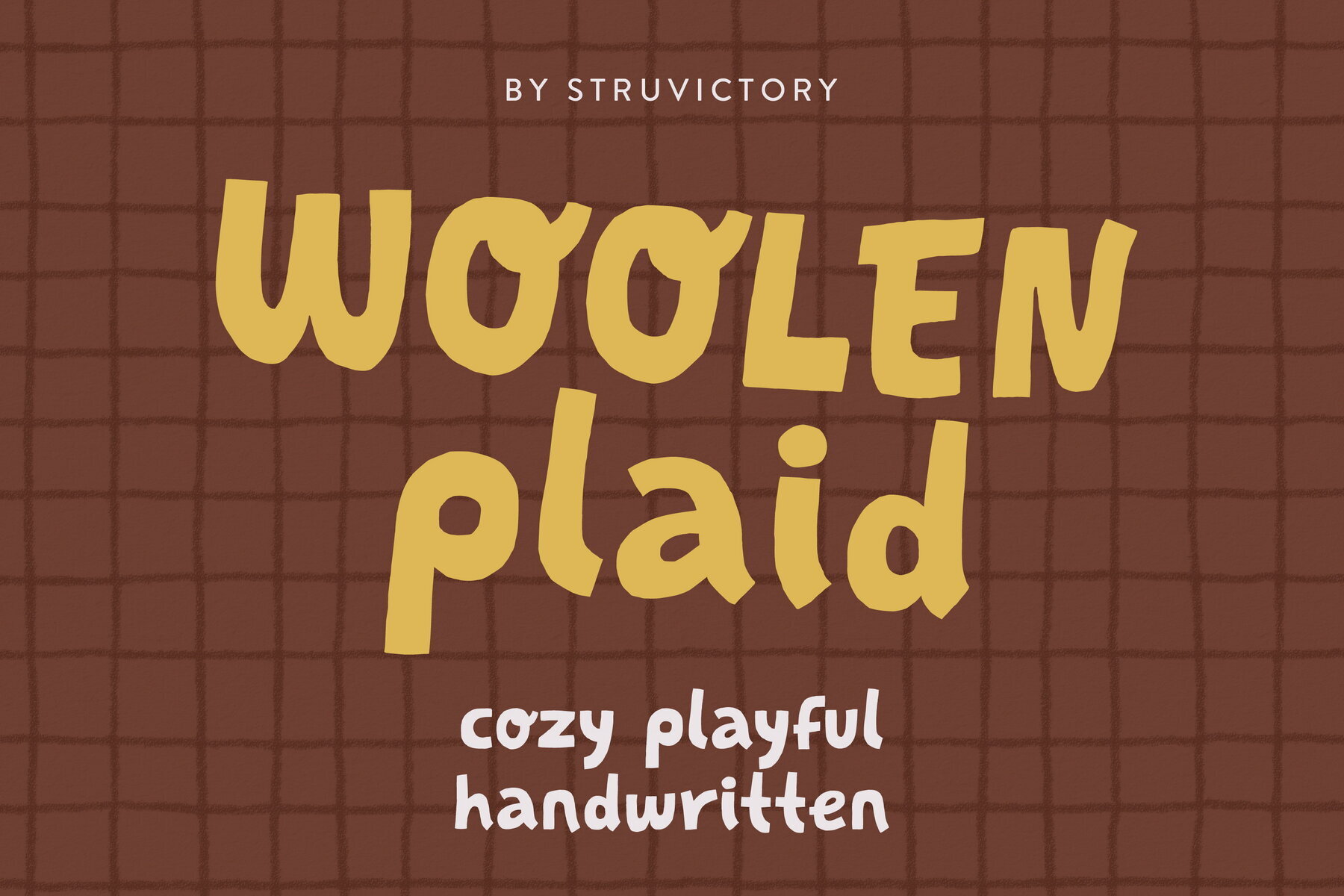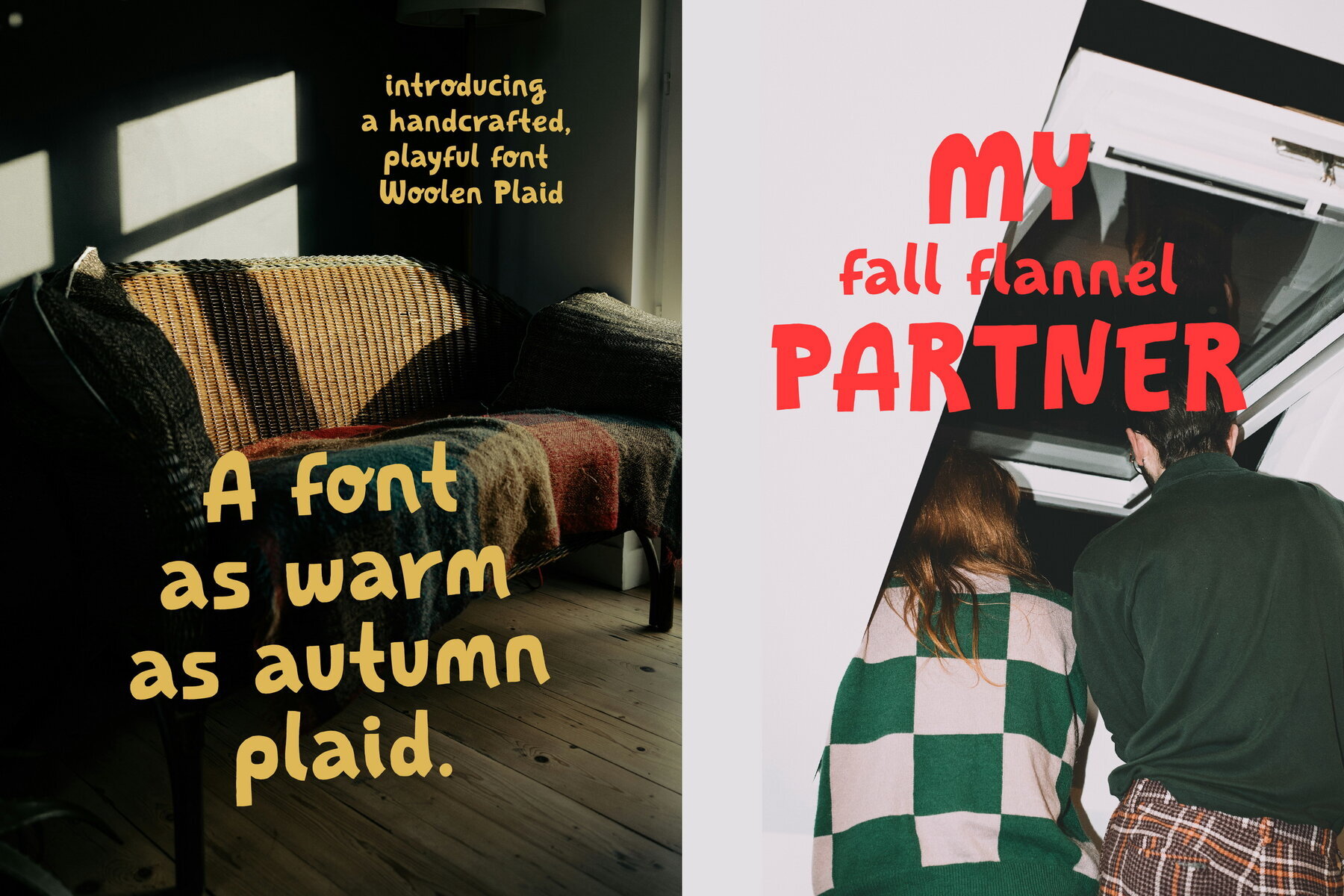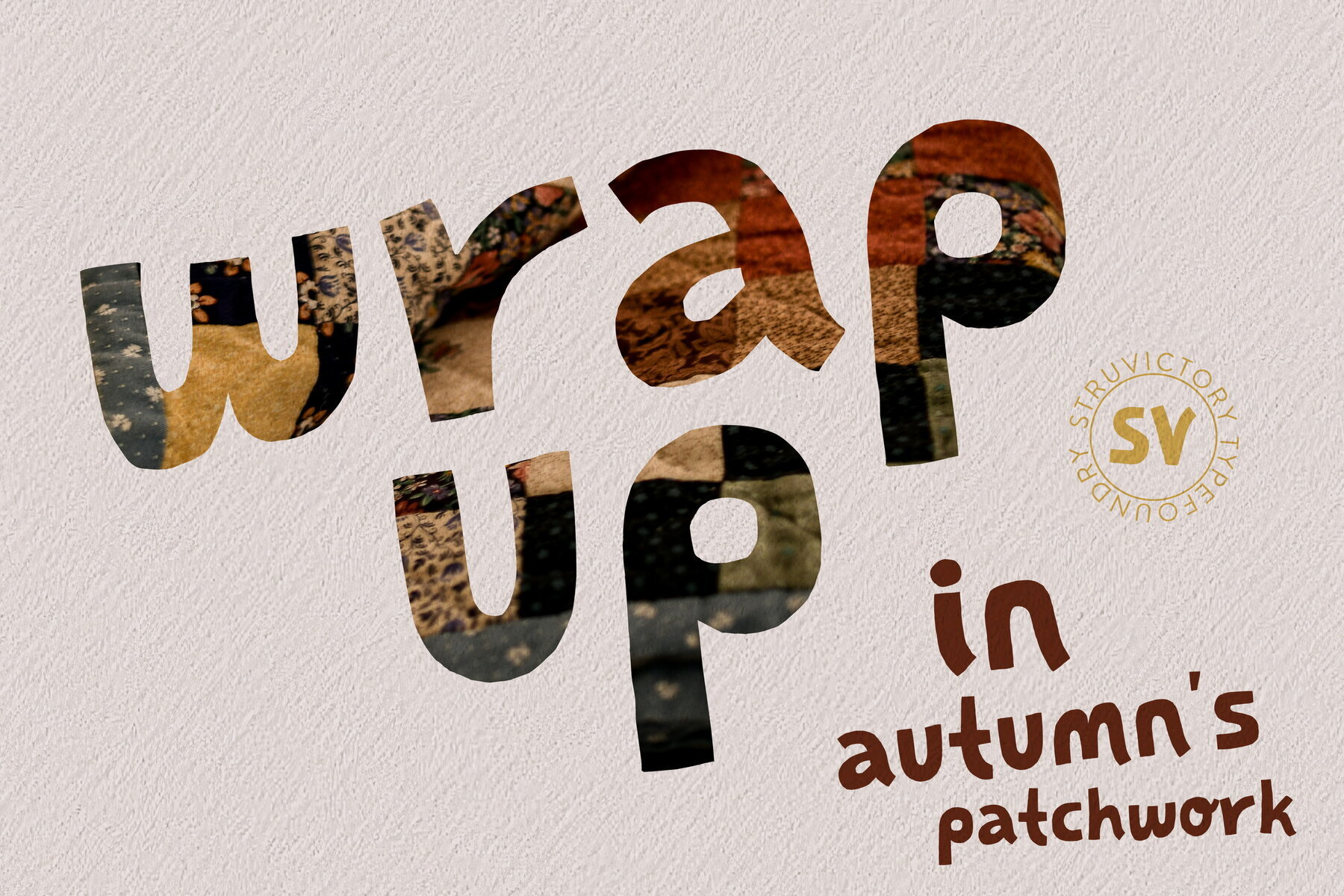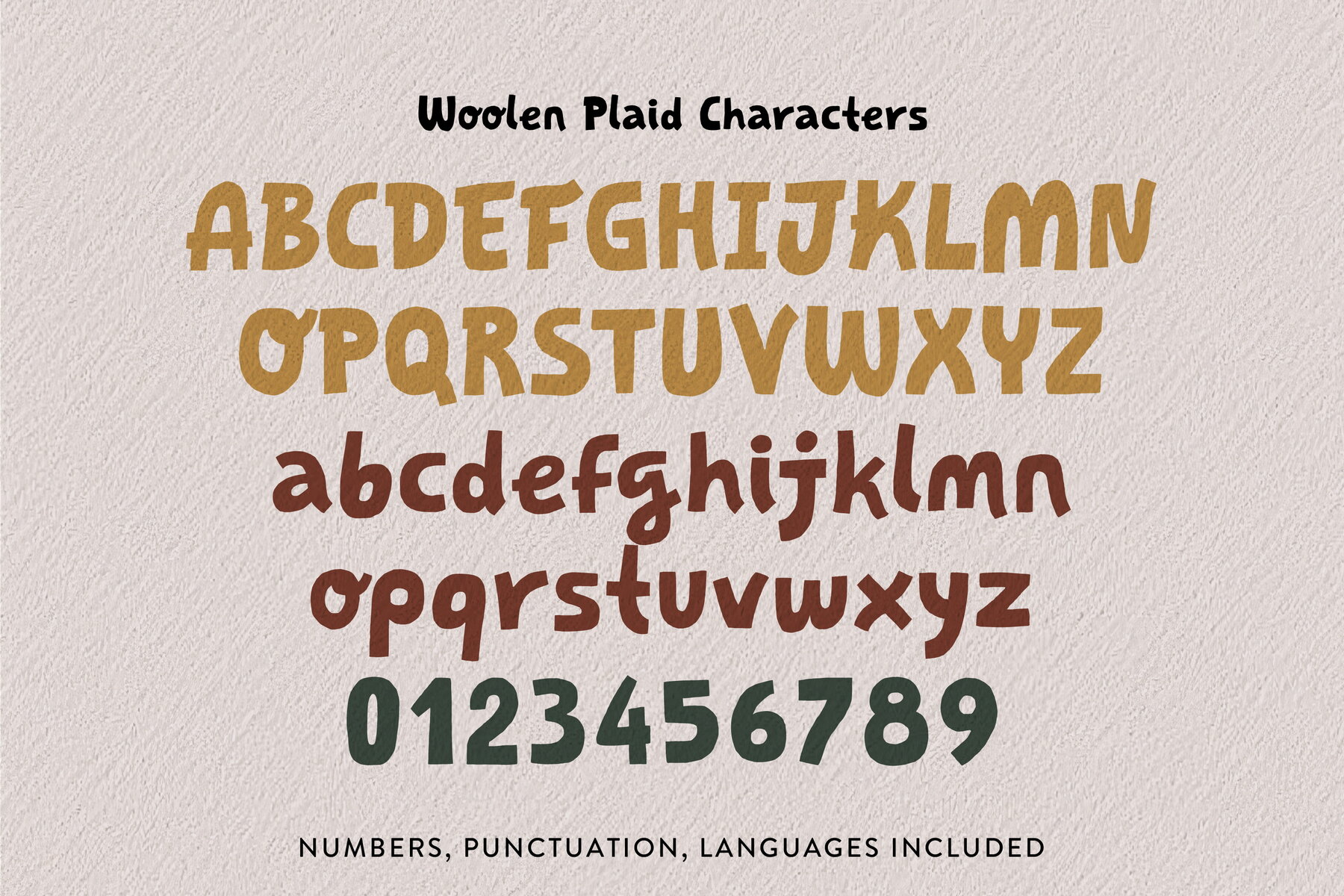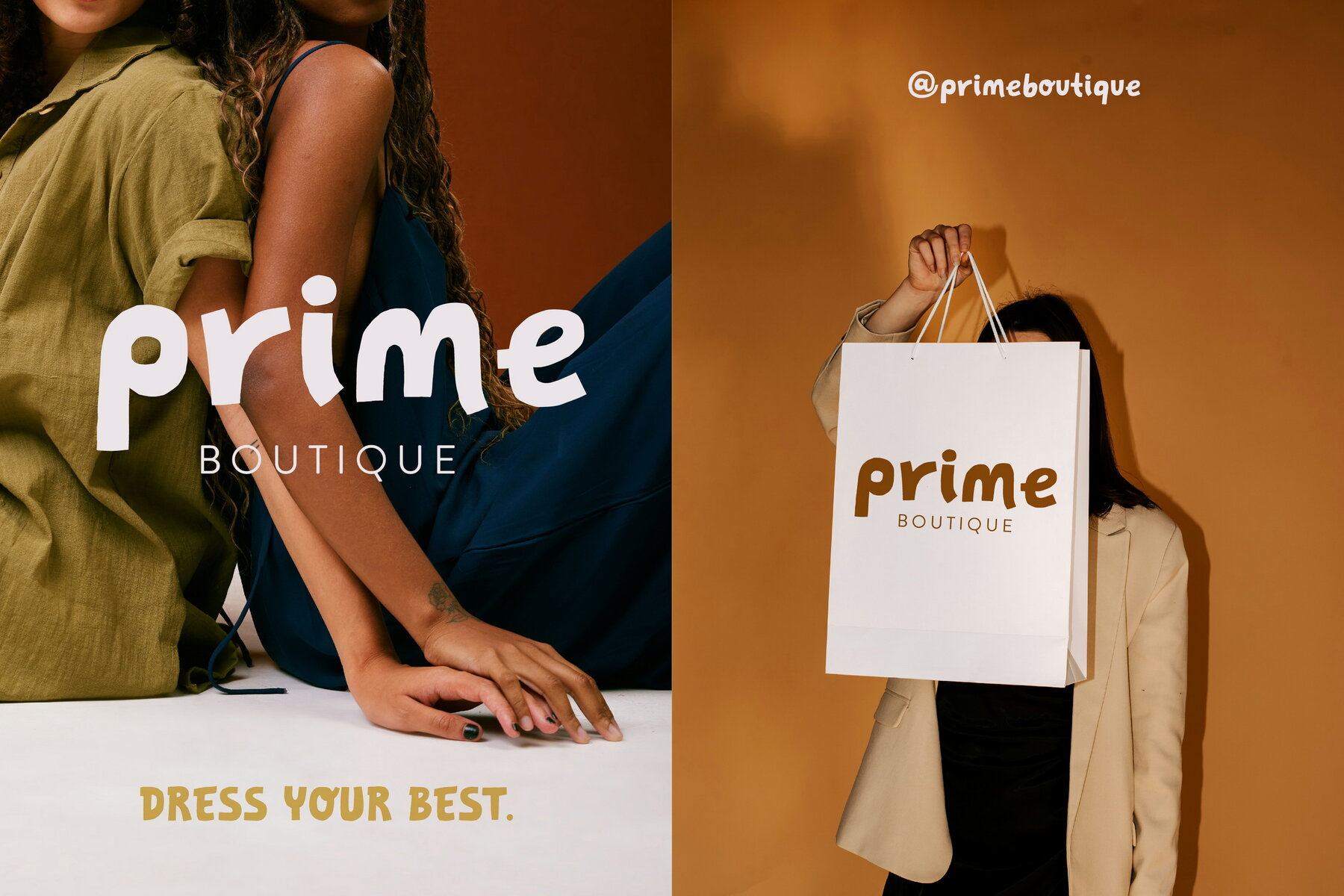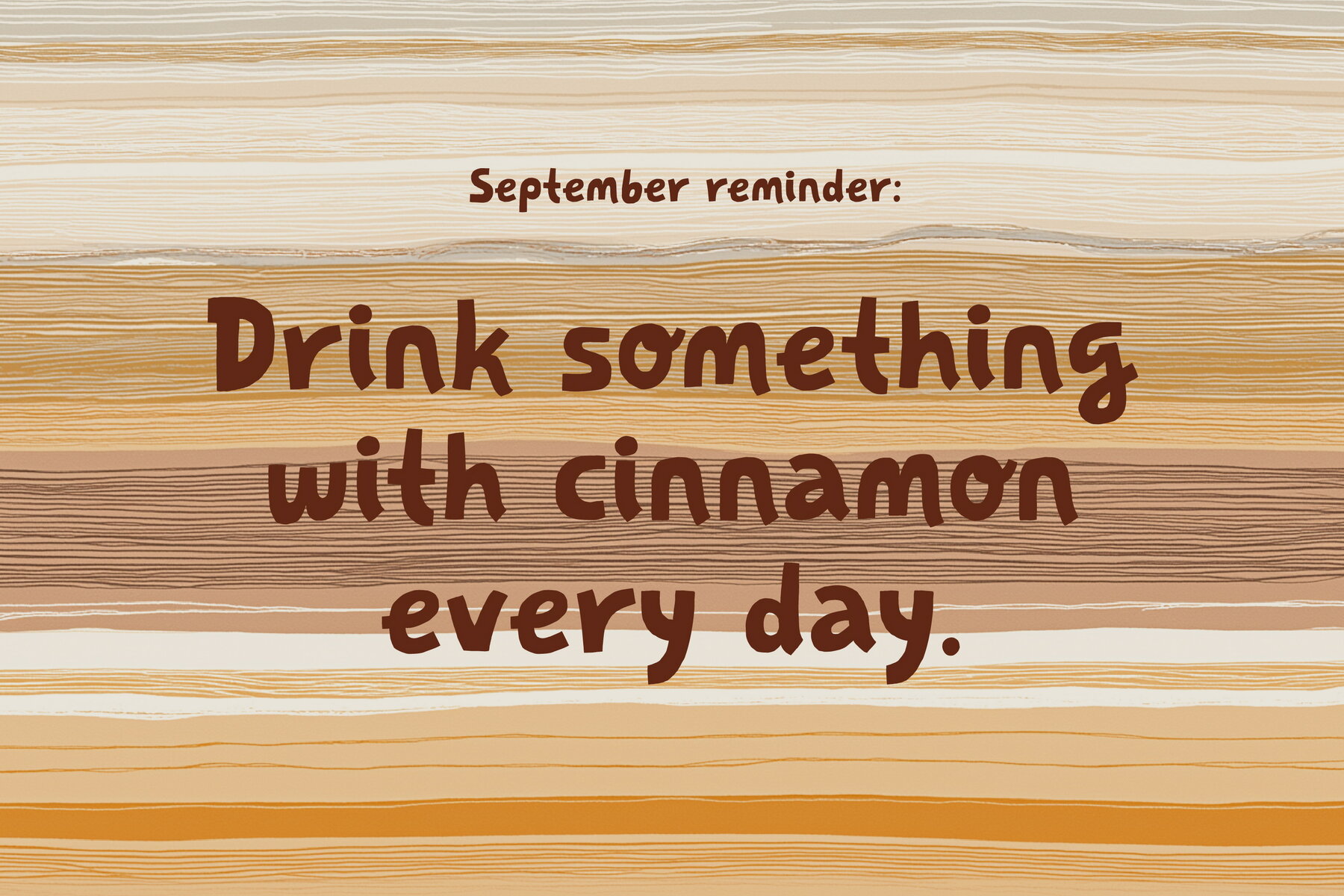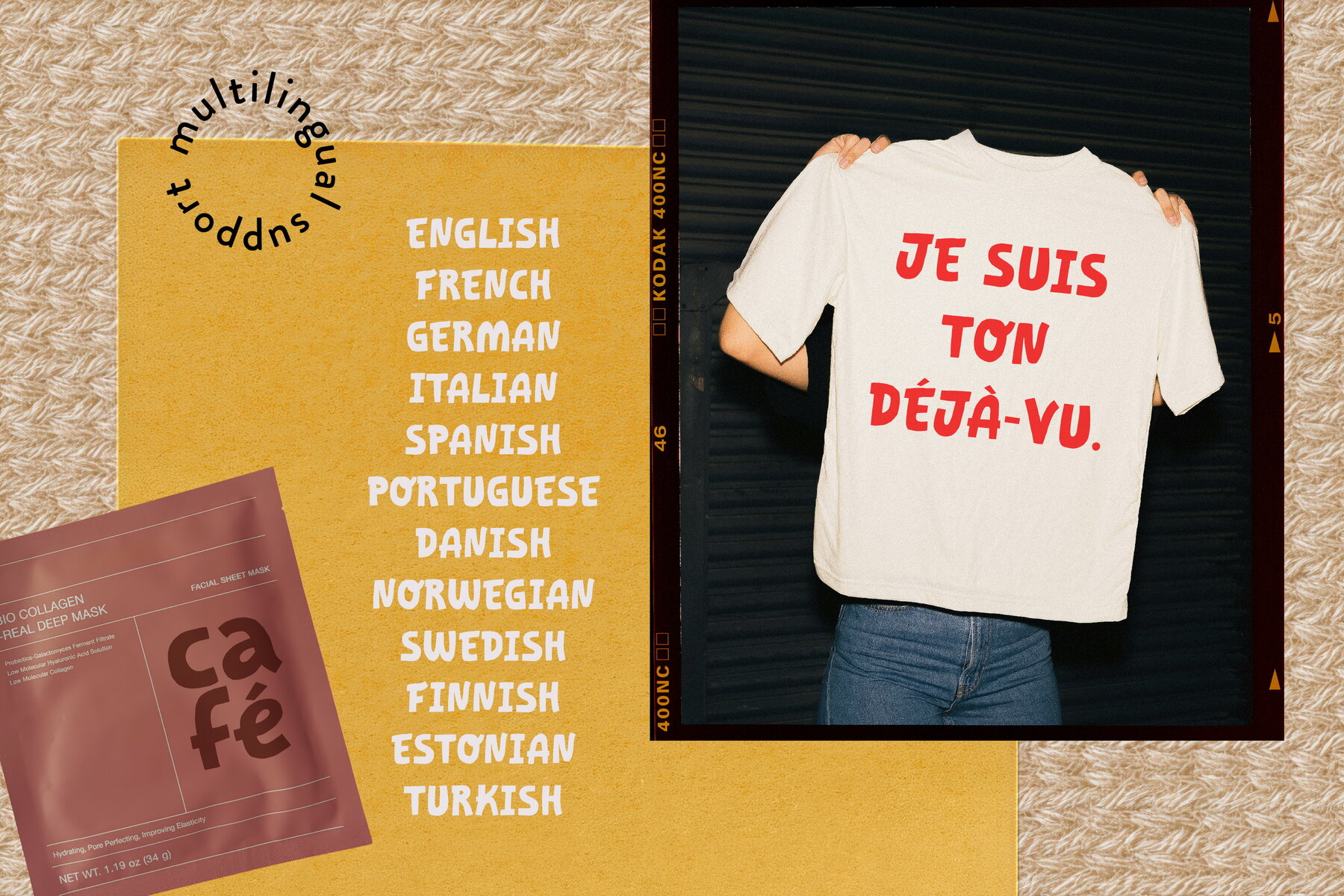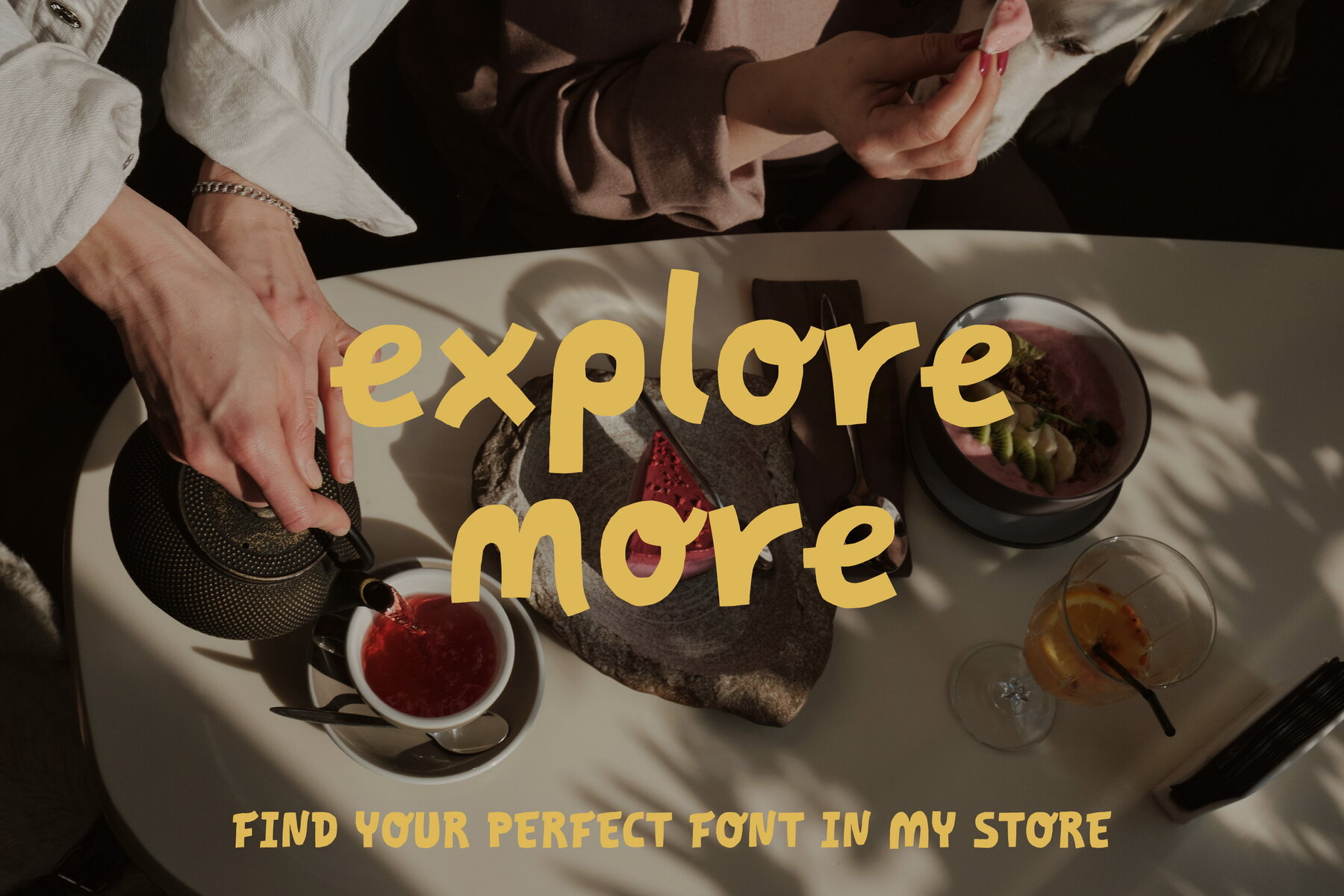
Woolen Plaid Font
Woolen Plaid Sans
Woolen Plaid Sans is a charming handwritten display font that embodies the warmth of autumn and the essence of a laid-back lifestyle. Its playful curves and hand-drawn texture wrap your words in the comfort of a cozy sweater, making it ideal for seasonal branding, cozy café menus, lifestyle blogs, packaging, and invitations. Wherever you need a touch of warmth and friendliness, this font adds a welcoming, handmade vibe.Woolen Plaid Sans: Cozy Handwritten Display Font